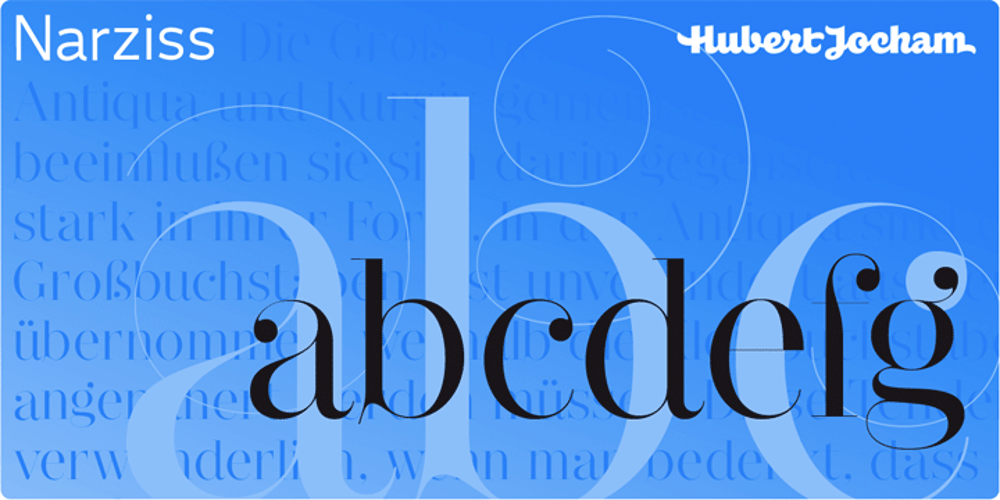
Narziss
Narziss font
Narziss Font Family was designed by Hubert Jocham and published by Hubert Jocham Type. Narziss contains 15 styles and family package options. Since Mommie I gradually got more into swirly ornaments. The massive contrast in the neoclassic style is perfect for thin swirly extensions to the characters. Even in an upright typeface. Narziss is very elegant in big headline sizes. Use it only very big.